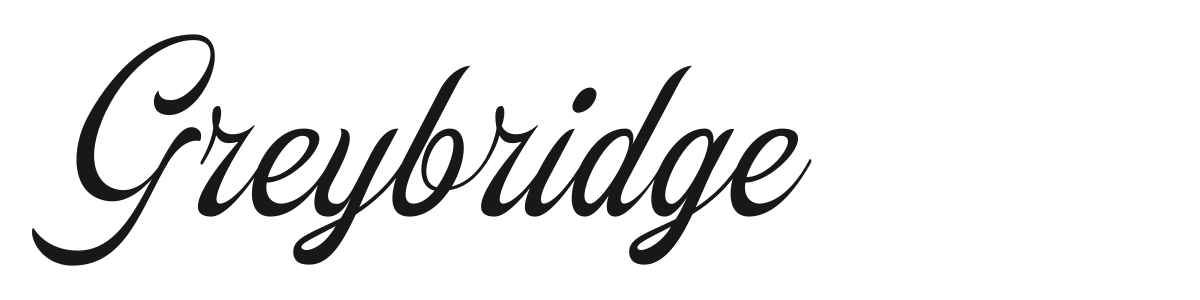
Greybridge
by Letterhend Studio · Website
Greybridge is a classical formal script rooted in copperplate calligraphy, with strong stroke contrast and long, sweeping connecting strokes. The letters flow together in fluid chains that feel hand-drawn yet disciplined, carrying the warmth of ink on paper. It suits wedding stationery, boutique branding, and any context where elegance and a handcrafted touch matter.